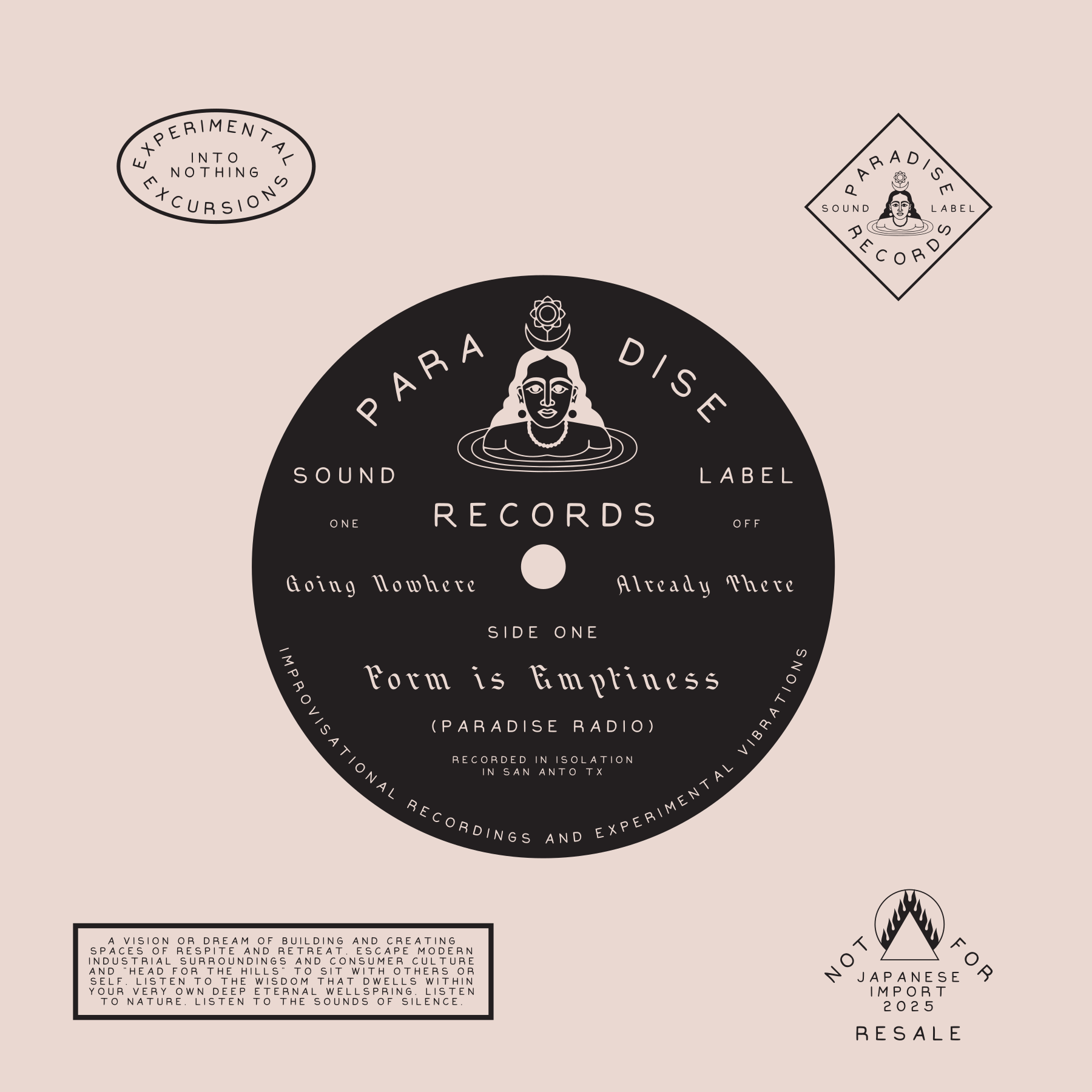
Long View
Simplicity is celebrated with Long View. A calming restraint of embellishment tendencies, we focus more on the message at hand and the endless possibilities of the forms words can take. Reminiscent of stamped metal badges, hand-drawn elevations, and poetry typed onto the toothy page by machines that now gather dust.